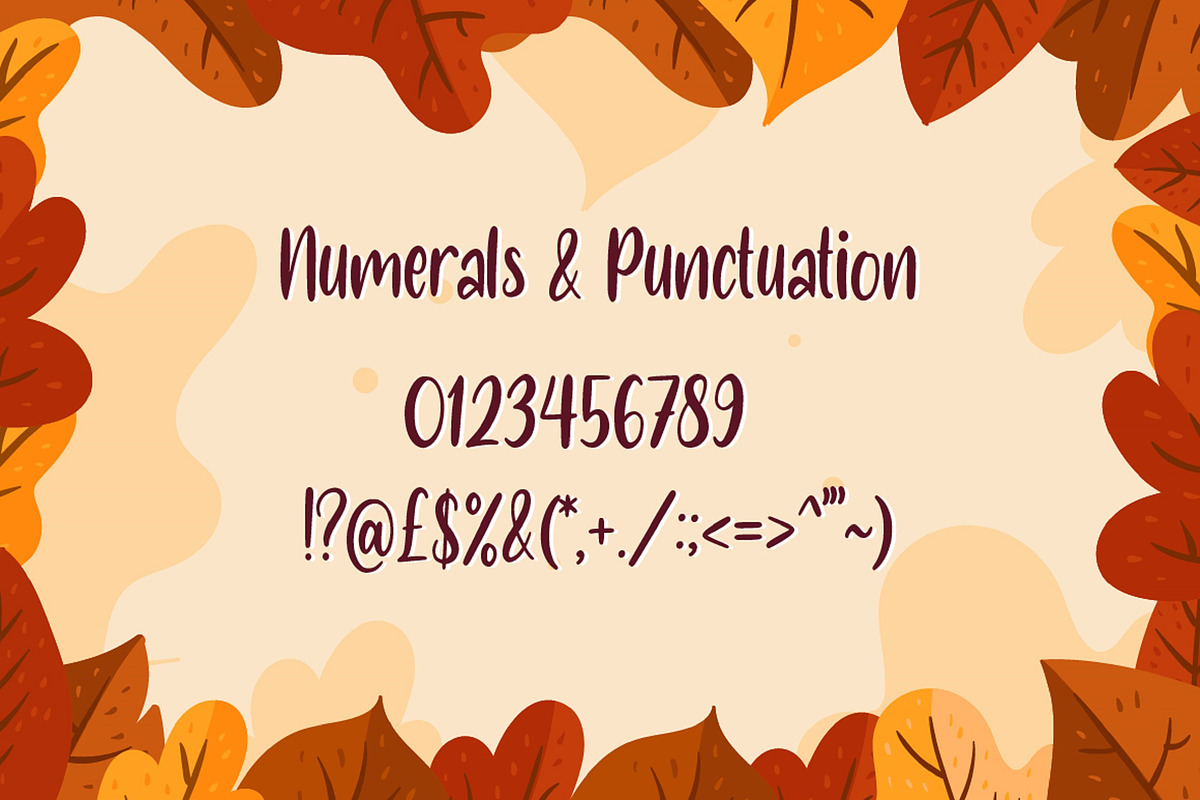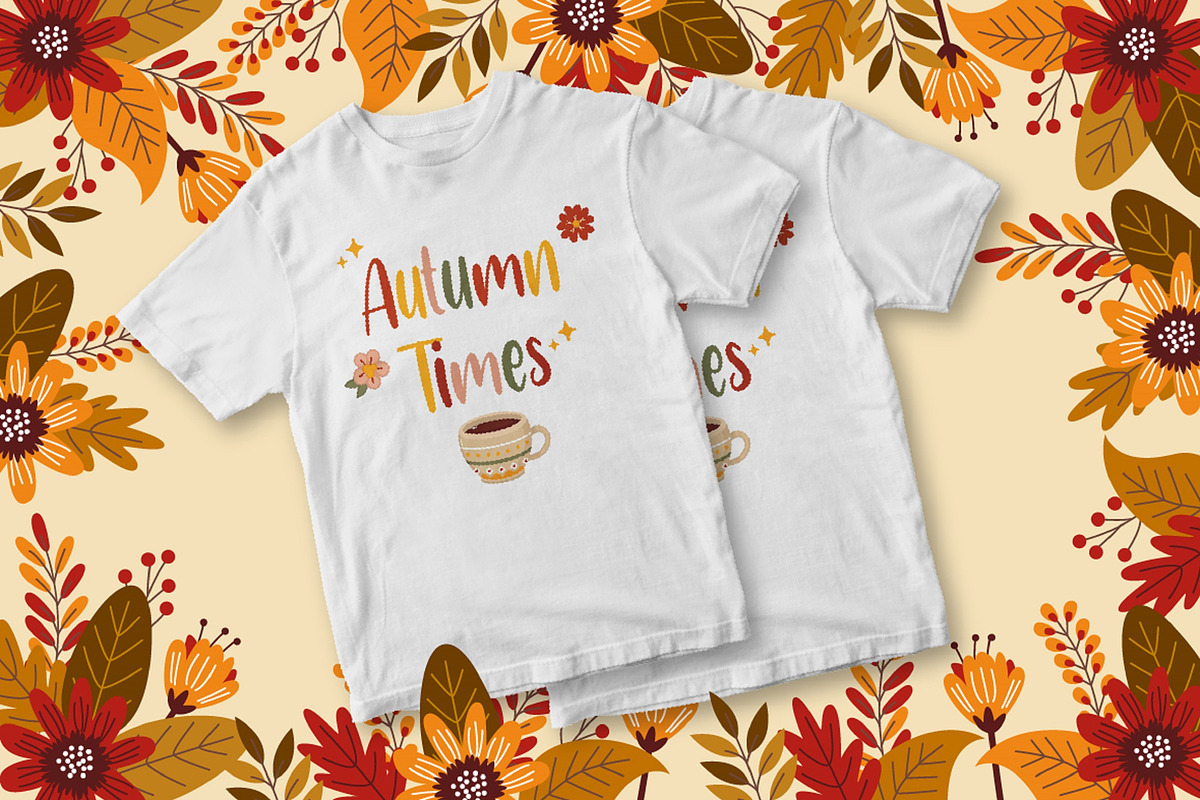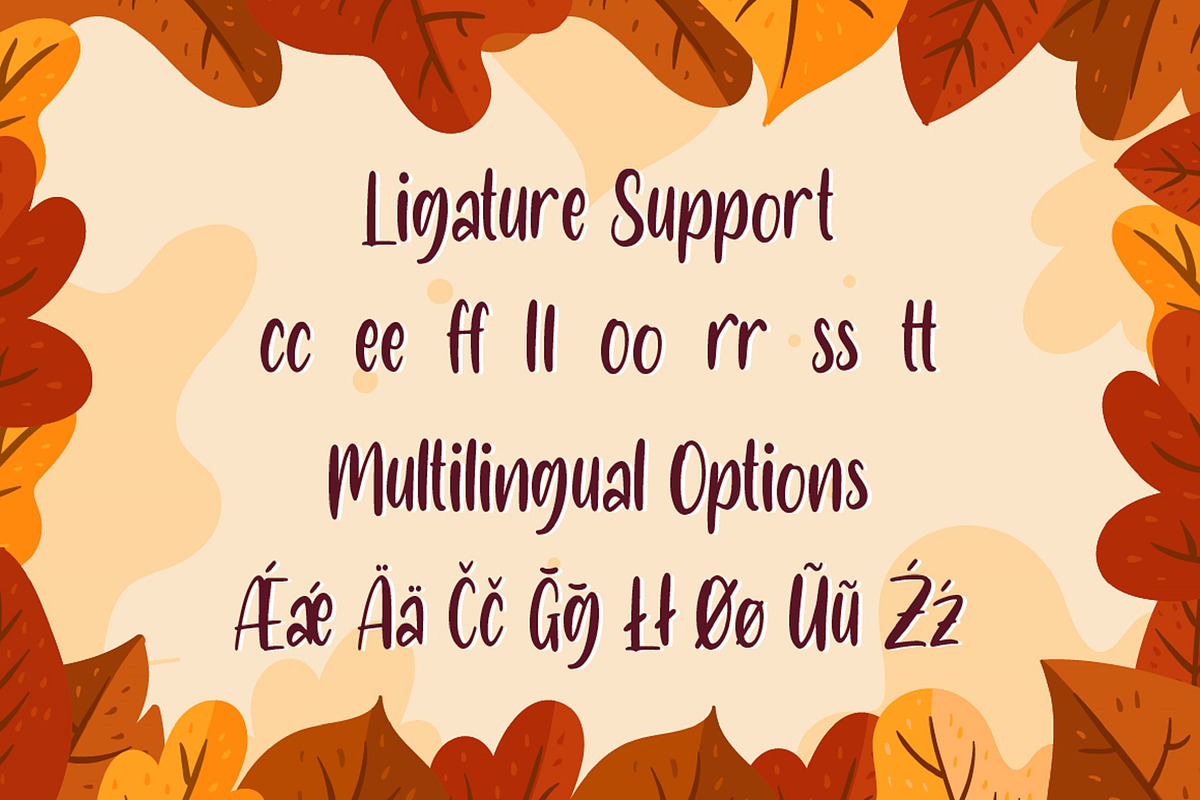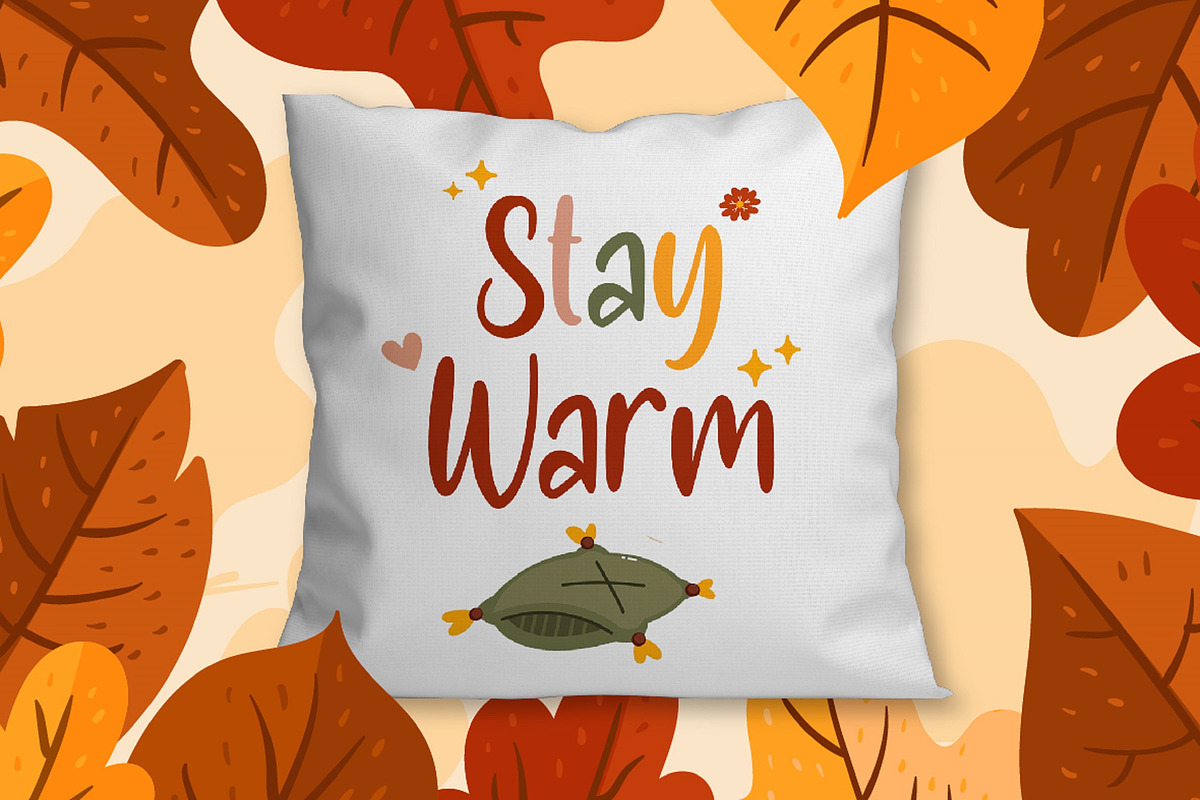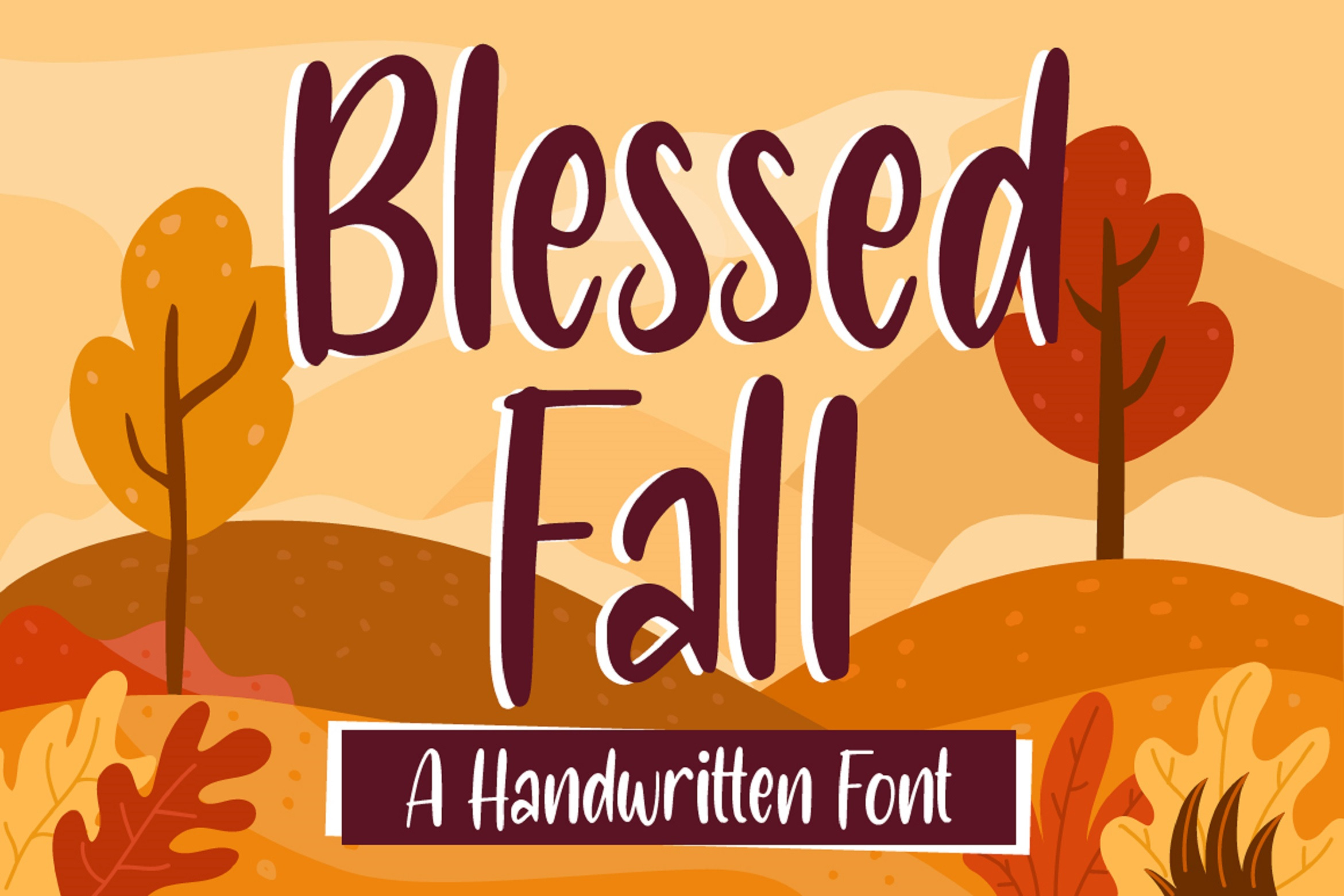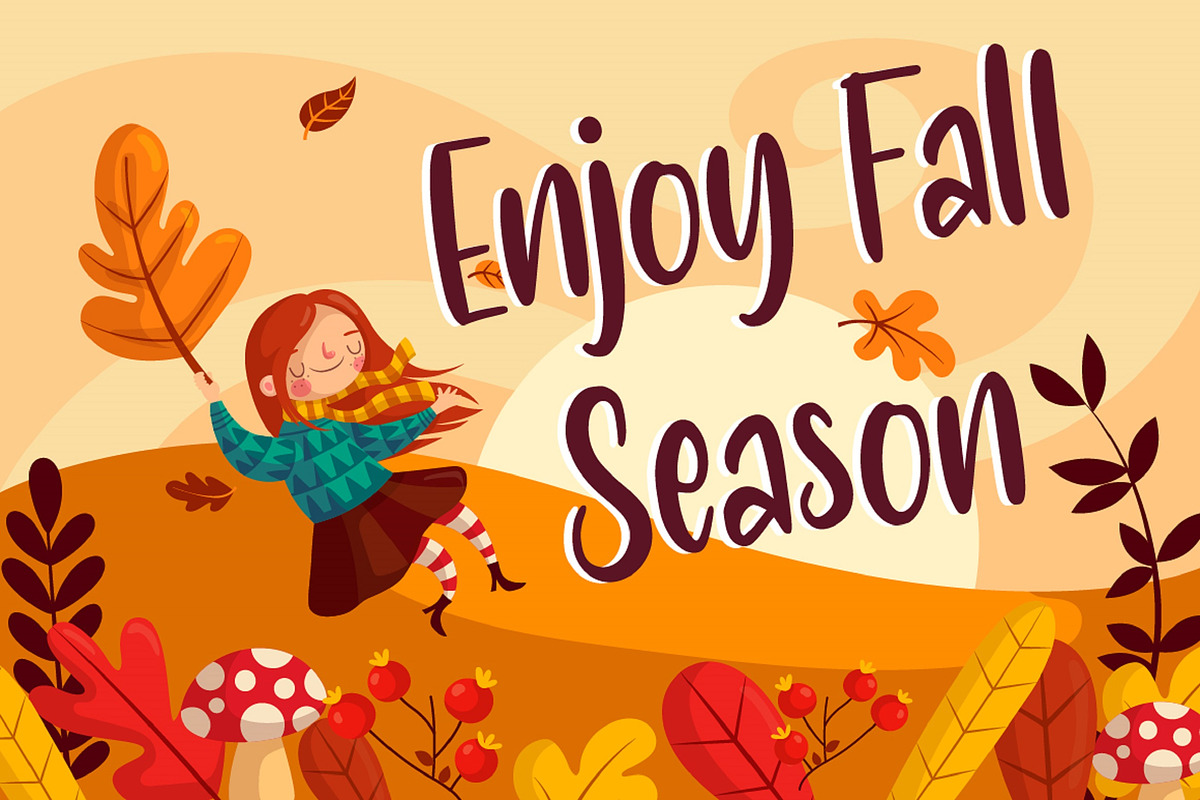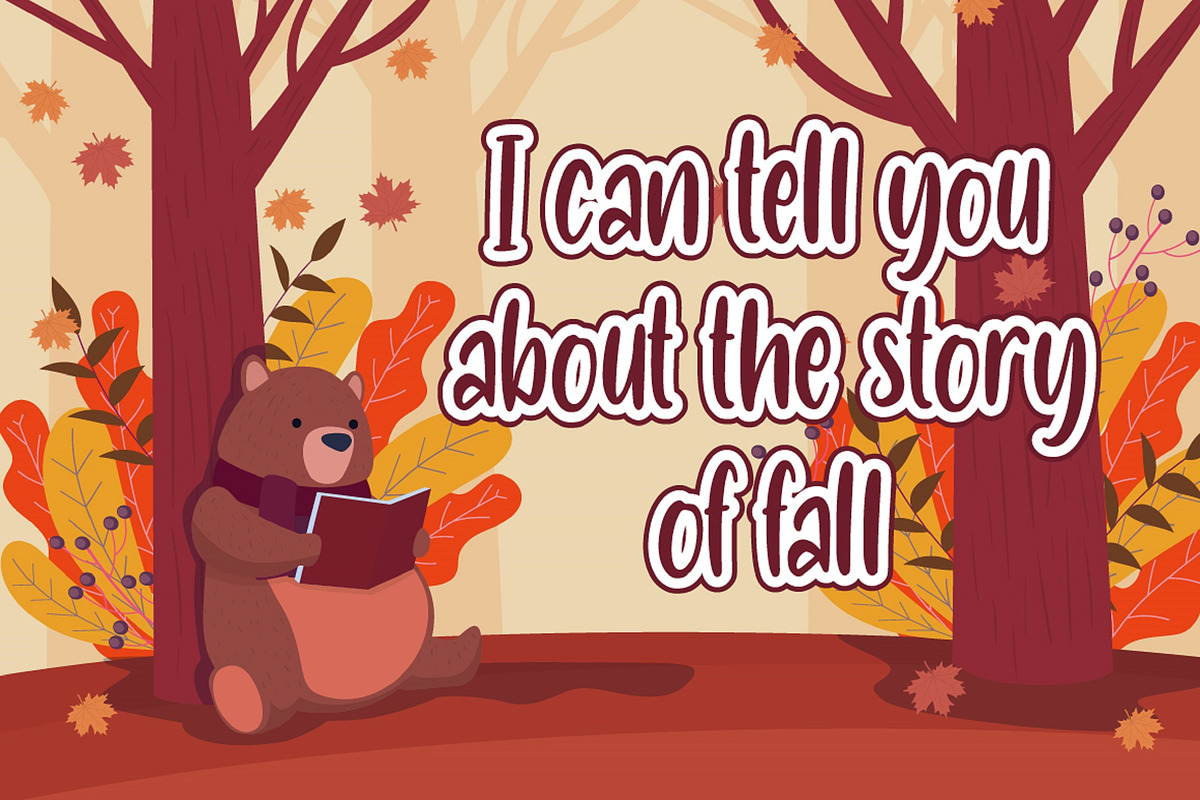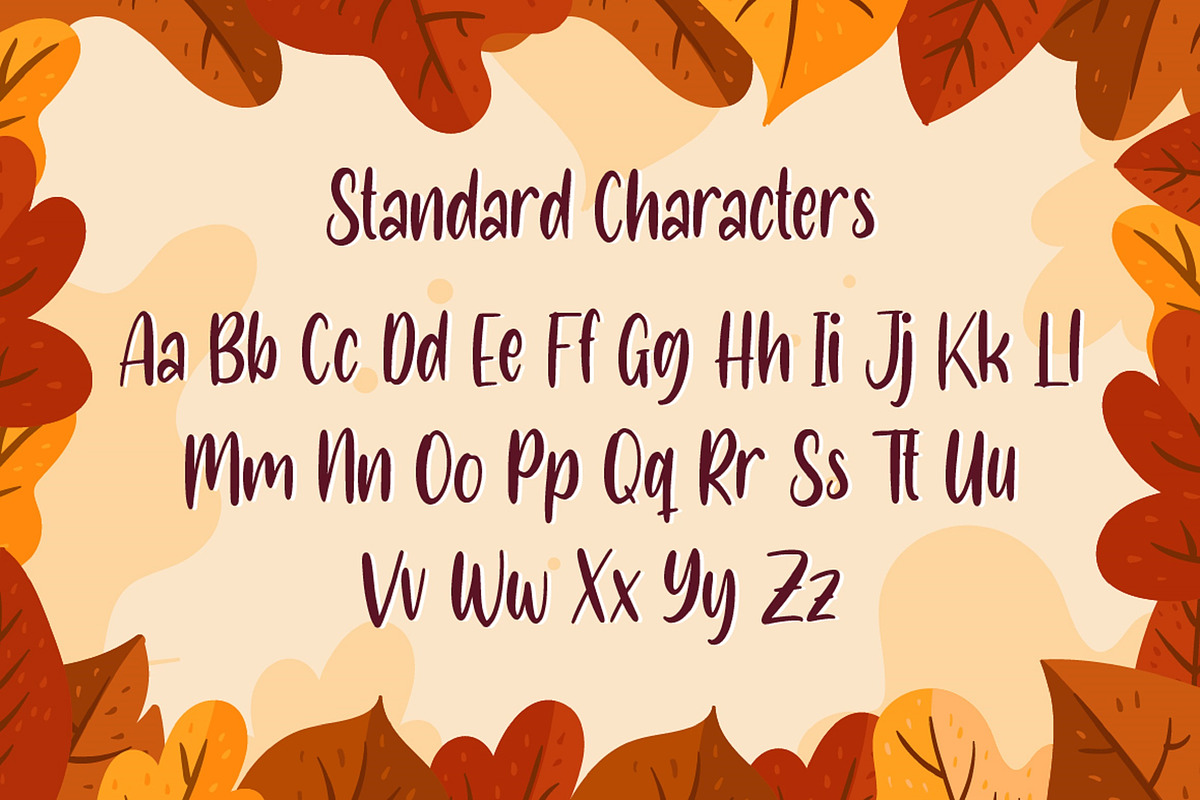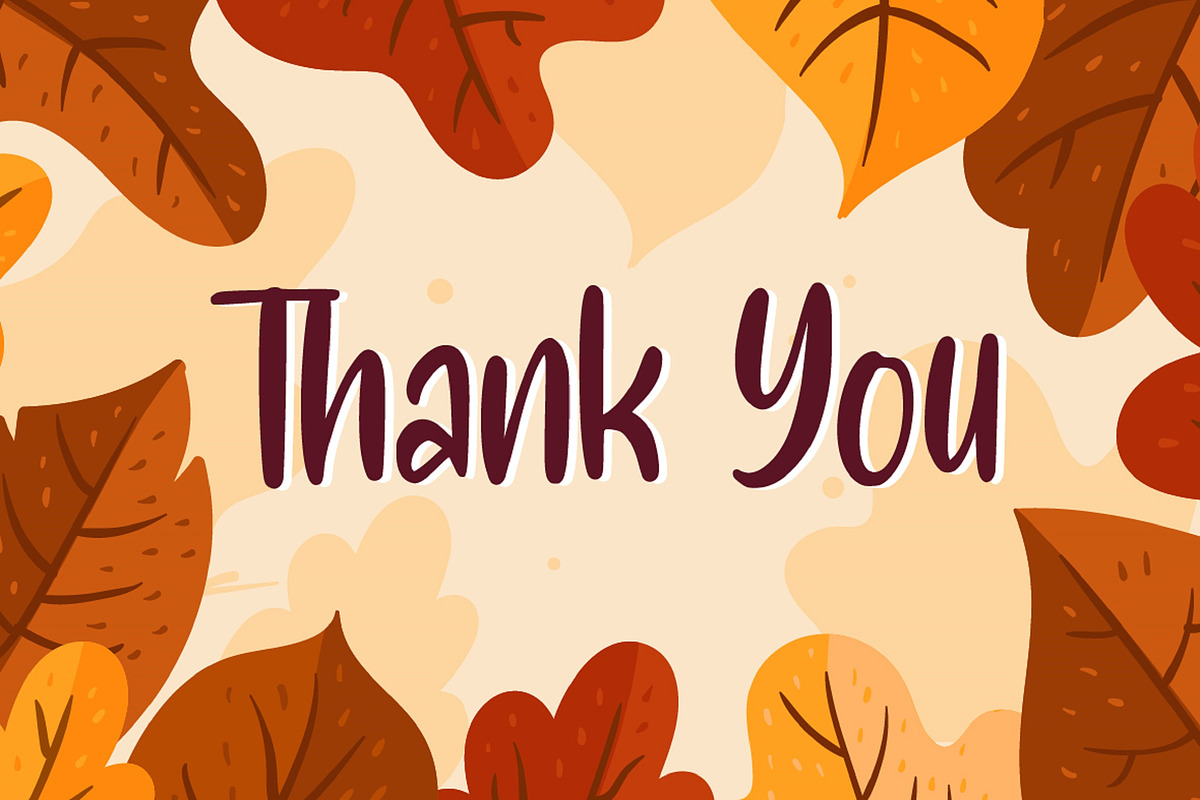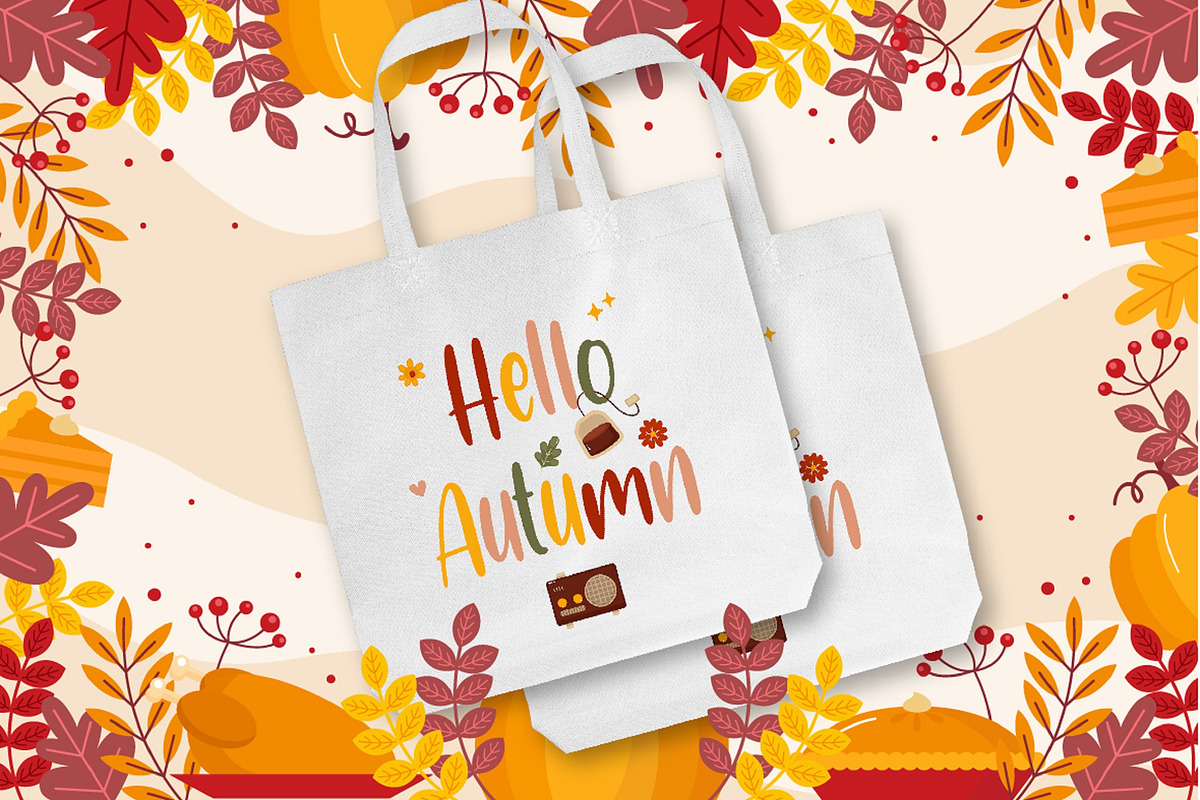
Handwritten Font
Introducing Blessed Font - A Handwritten Font
A script cursive handwritten font. Beautiful, cozy, casual, yet neat enough to be used for various purposes. Go ahead and use it on your projects, promotions, advertisements, social media and even printed materials!
Font beautifully made for your audience, clients, or guests!
- Multilingual & Ligature Support
- Full sets of Punctuation and Numerals